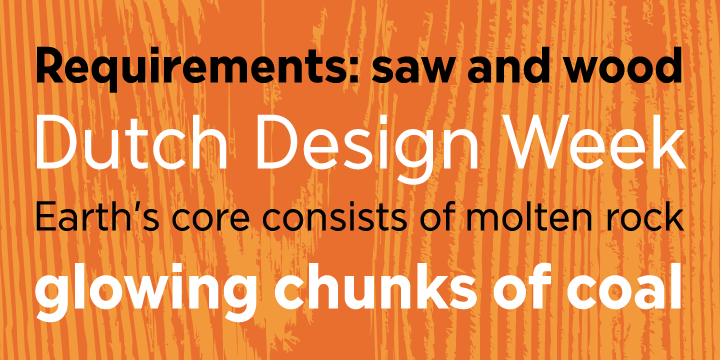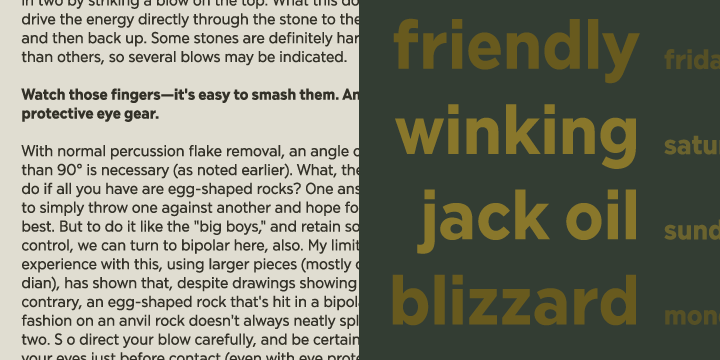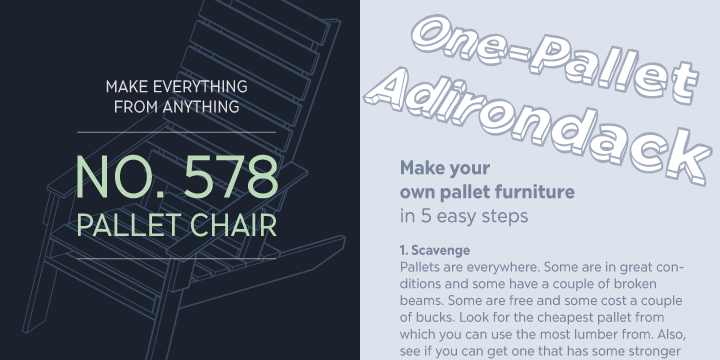
Phi is a sans serif font family. This typeface has two styles and was published by Cas van de Goor Design.
Phi is a simple geometric sans, inspired by the Golden Ratio. It is rock solid, versatile, legible and excellent for both text and display usage.